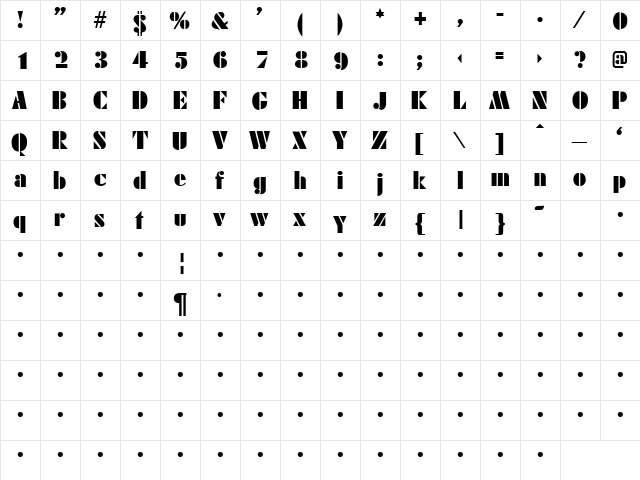
QTFuturePoster Regular
Design Context for QTFuturePoster Typeface
QTFuturePoster channels digital-age aesthetics through its sharp, structured letterforms — ideal for brands that want to signal innovation.
Pro Tip: Try QTFuturePoster with generous letter-spacing in UI labels and navigation — the geometric forms benefit from room to breathe.